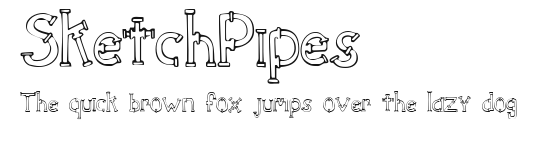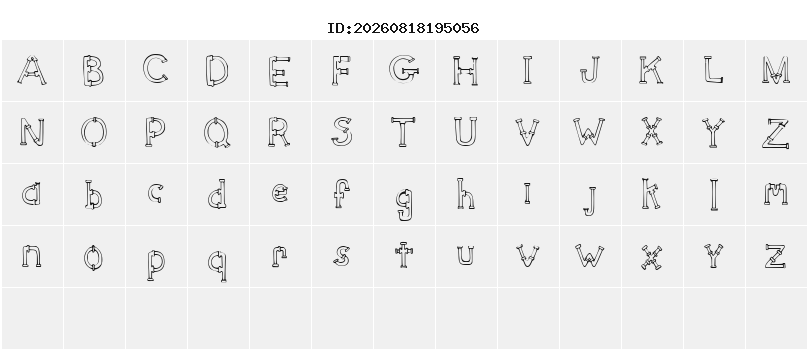
SketchPipes Preview
• Font Name: SketchPipes
• Font ID: Character: SketchPipes: 2005
• Full Font Name: SketchPipes
• Version: Version 1.000 2005 initial release
• PostScript Name: SketchPipes
• Character Count: 53
• Designer: Character, based on Awesome Alphabets by Mike Artell, 1999
• Manufacturer: Character
About SketchPipes.ttf